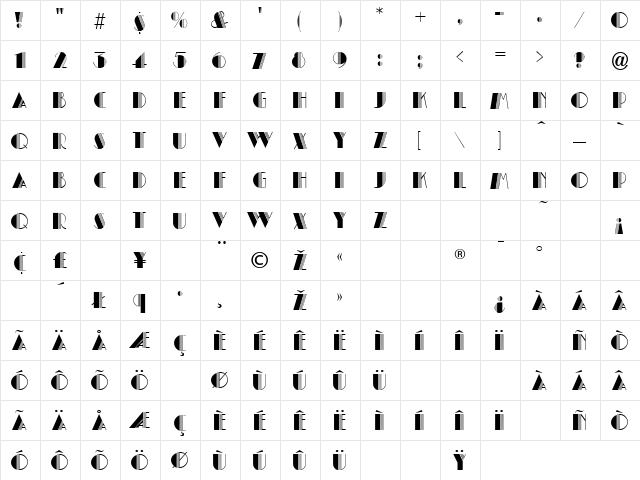
Alex Regular Font Preview
Alex Regular
Alex Regular Font Details
Design Context for Alex Typeface
Alex is a composed and adaptable typeface that performs quietly and consistently across a wide range of design contexts.